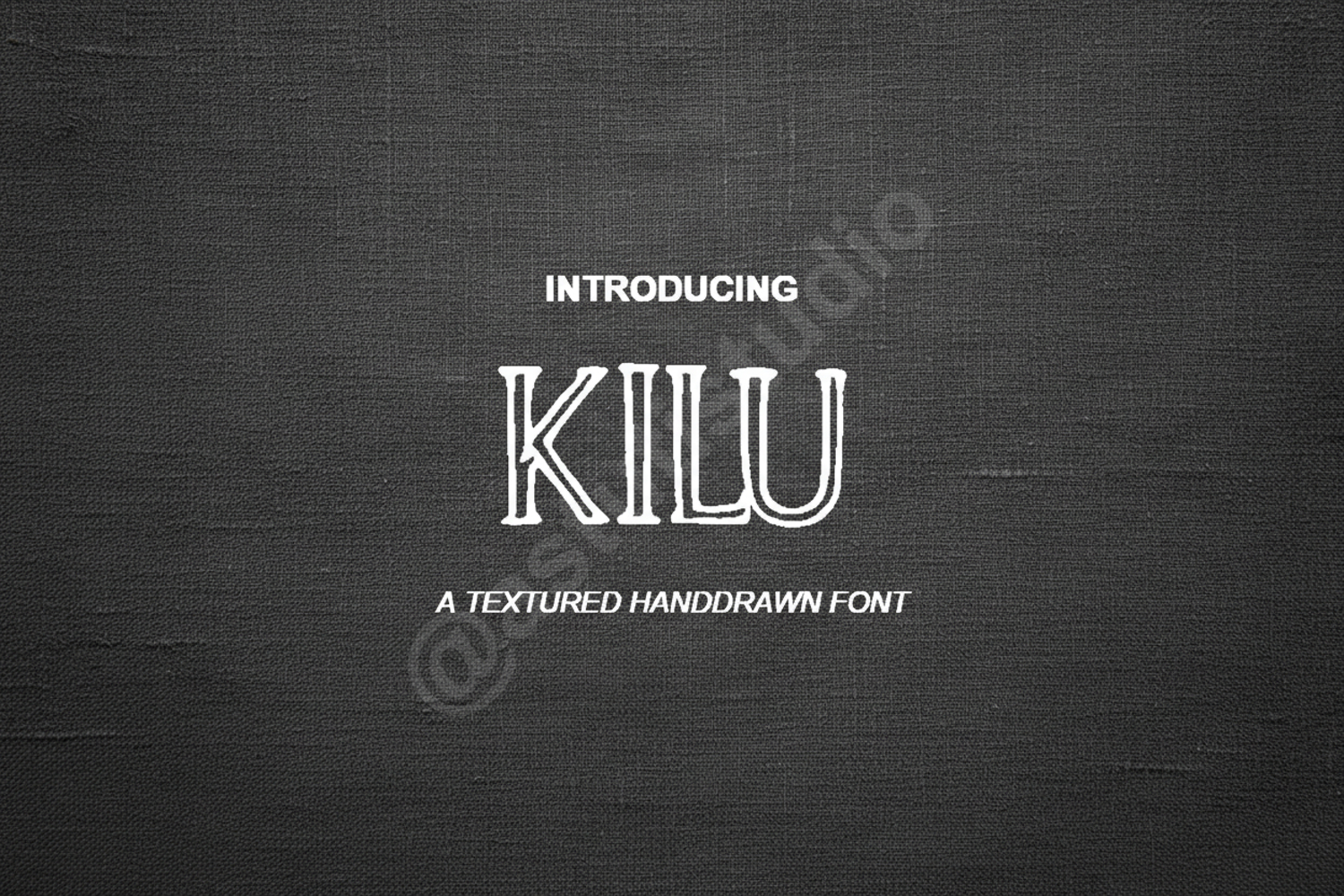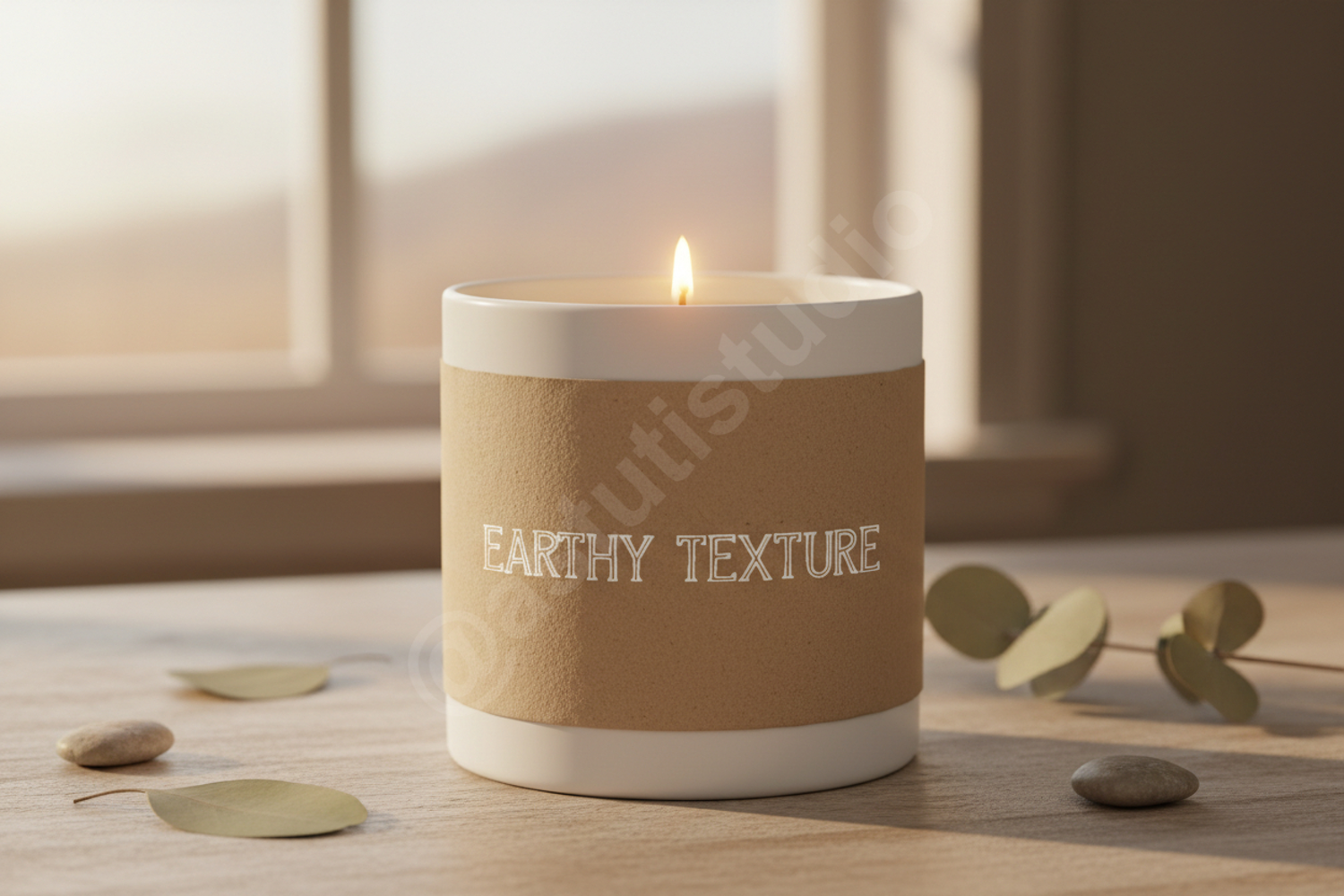
Kilu - Modern Minimalist Sans Serif Font
Kilu
Kilu is a premium sans serif typeface meticulously crafted to bring a touch of modern sophistication to your creative projects. With its clean lines and balanced proportions, this font offers exceptional legibility while maintaining a unique, contemporary character. Whether you are working on a high-end brand identity or a minimalist editorial layout, Kilu provides the versatility and professional polish your designs deserve.
- Clean and minimalist aesthetic
- Precise geometric construction
- Optimized kerning for professional results
Ideal For
- Branding and Logo Design: Create memorable and impactful visual identities.
- Editorial Layouts: Perfect for magazines, brochures, and digital lookbooks.
- Web Design: Enhance user experience with clean, readable headers and body text.
- Social Media: Stand out with sleek and modern typography on Instagram and Pinterest.
- Stationery: Add a professional touch to business cards and invitations.